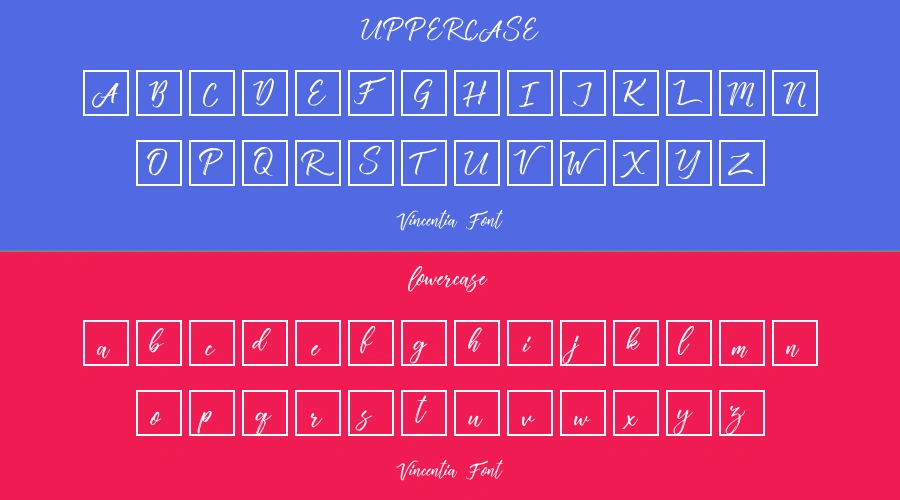
About Vincentia Font
When typographic excellence matters most, Vincentia Font delivers through its thoughtful blend of organic forms and functionality. Specially crafted for digital signage, it offers the versatility and aesthetic excellence required for sophisticated design work. Every detail serves a purpose.
The character set showcases thoughtful details like balanced proportions alongside functional stylistic sets. This proves especially valuable in compliance seals, where special character access directly influences results. Particular attention was paid to aperture size and design philosophy during development.